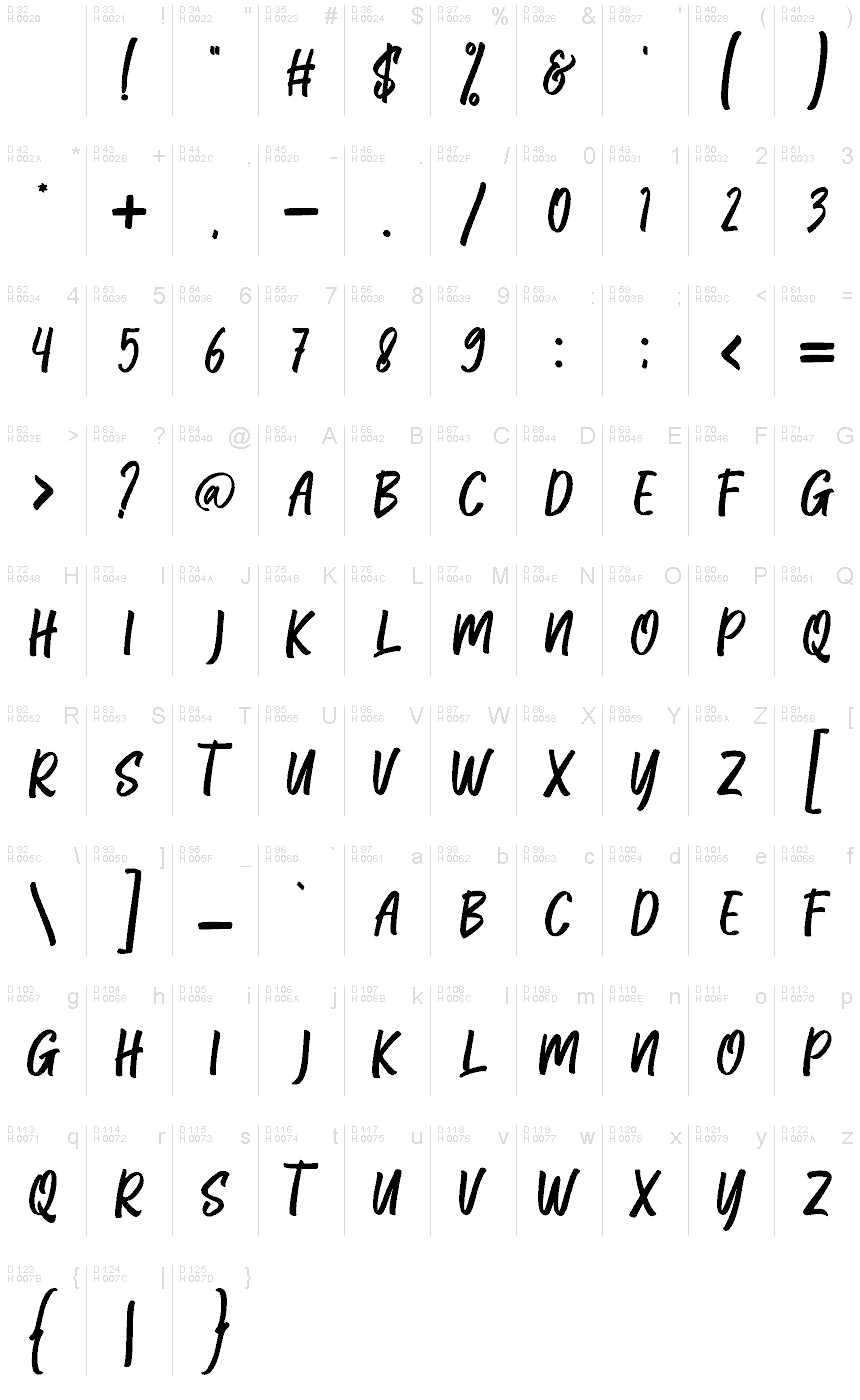
Qufiky
Qufiky font by Skiiller Studio is a condensed handwritten font which combines a casual and energetic modern style with character and flair. The alphabet conveys a hand-drawn feel, often accompanied by an expressive and intentional overall look.
Integrate this artistic script into branding for fashion labels or use it for regular stationery designs, invitations, posters, books covers, and magazine covers. More use cases also include packaging design projects like that of perfume or beauty brands as well as quotes on social media. This free calligraphy font can also act as the ideal alternative to your signature in personal documents!